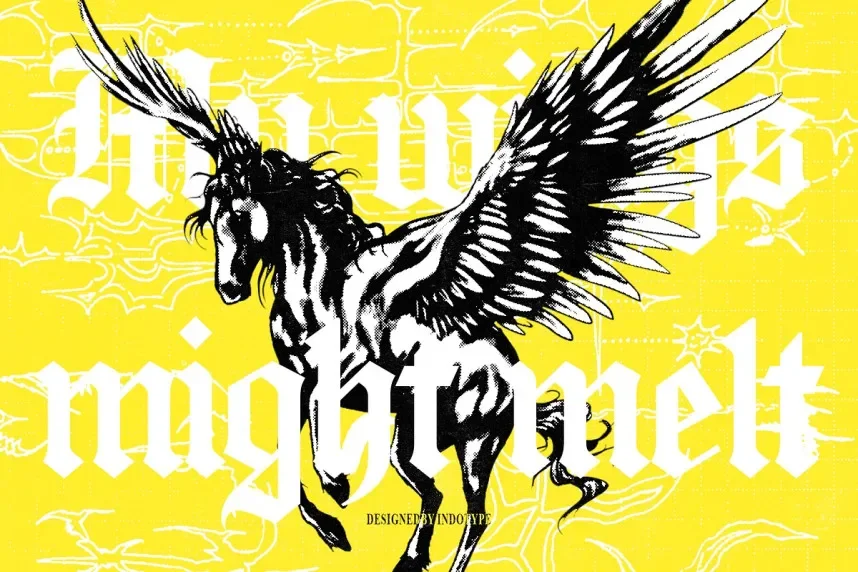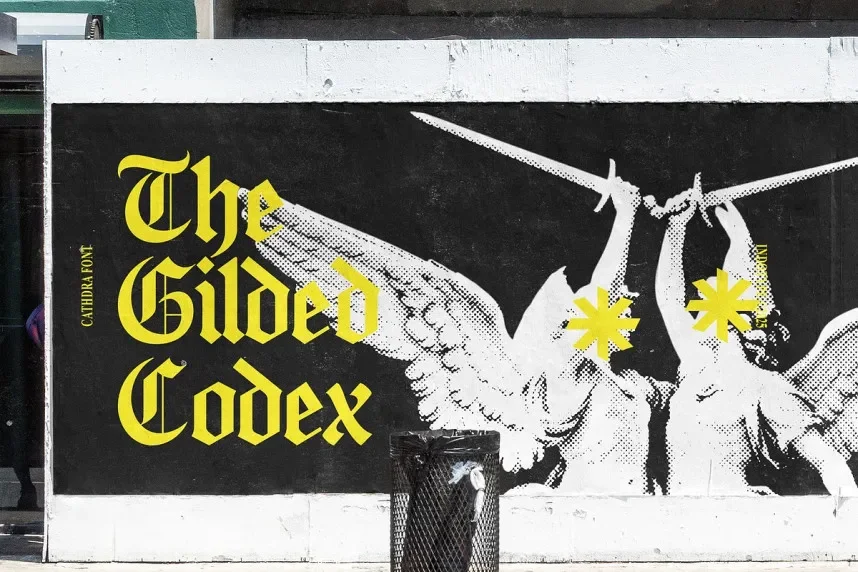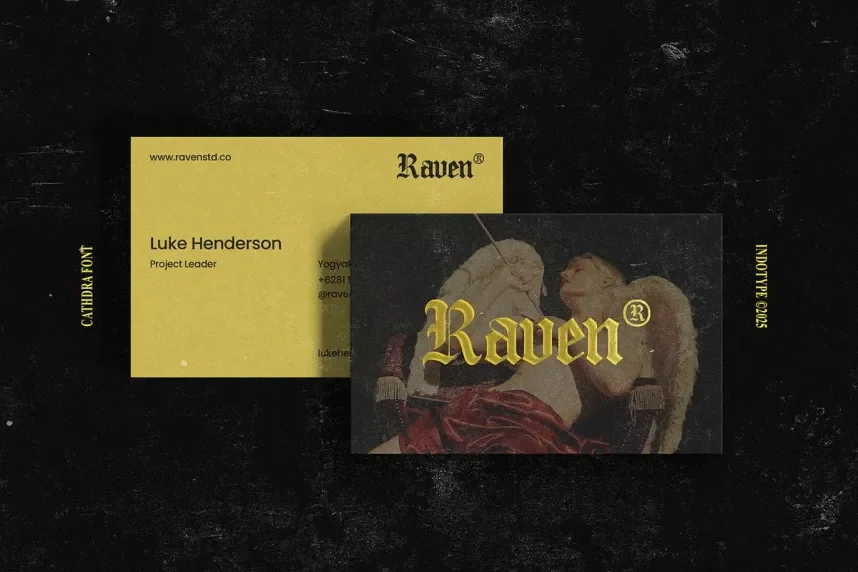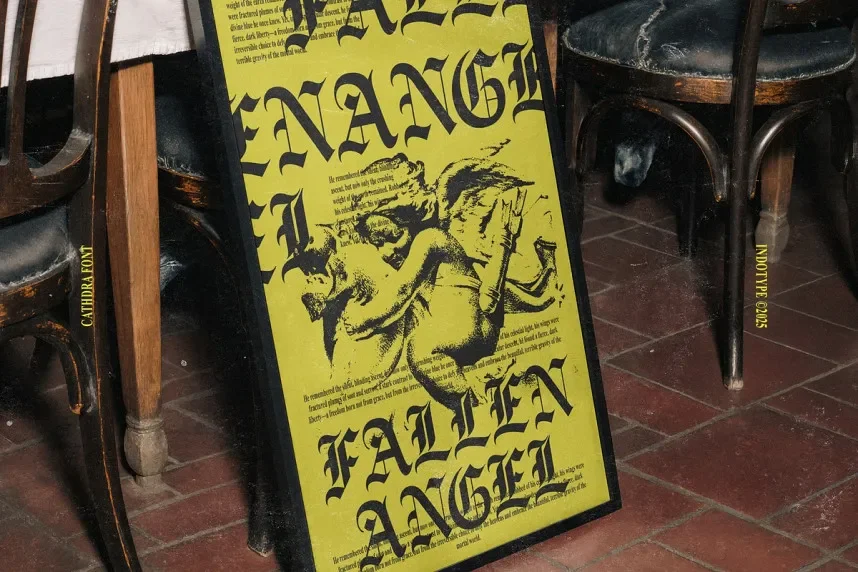
Cathdra Font is a gothic blackletter typeface with intricate, medieval-inspired letterforms. Its bold strokes and dramatic contrast make it ideal for designs that require a strong, vintage feel, such as medieval-themed branding, book covers, and certificates.